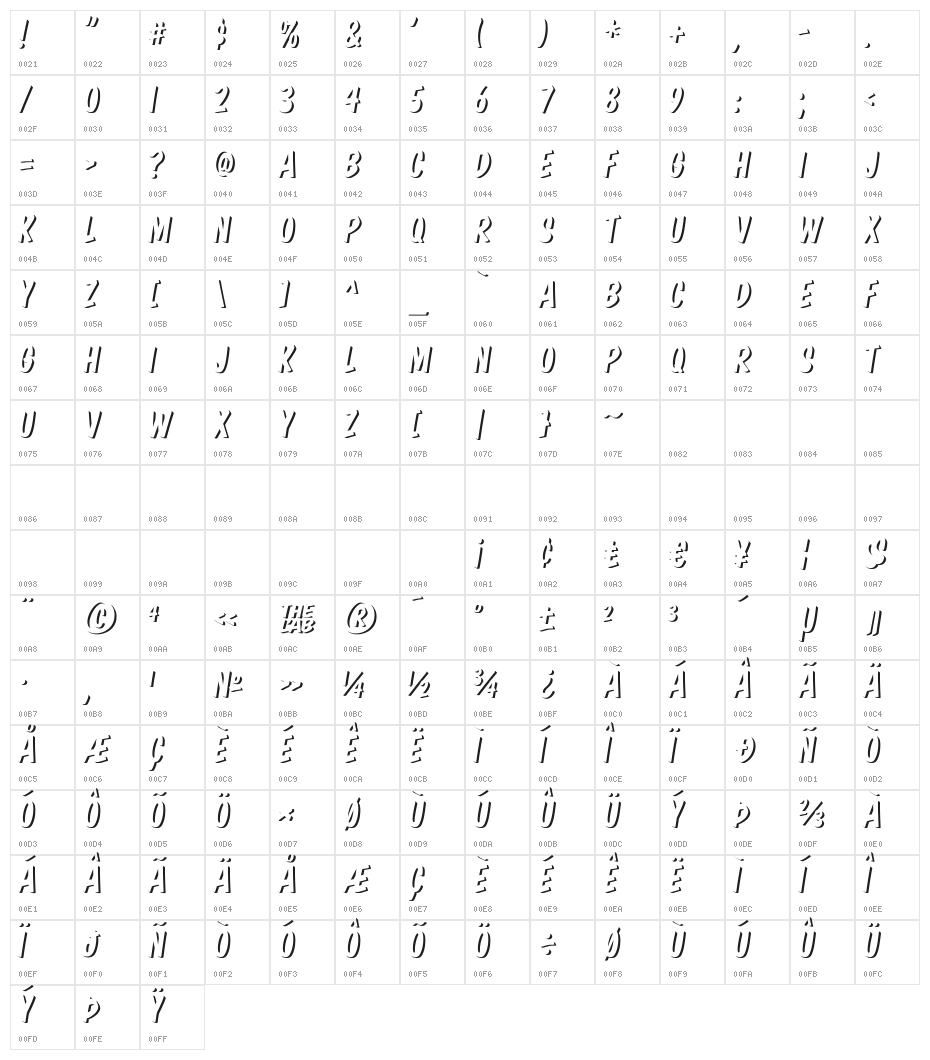
Komika Boss Font
Komika Boss Description
This font features a bold and dynamic style with a playful, comic-inspired appearance. The characters are slightly slanted, giving them a sense of motion and energy. Each letter is outlined with a shadow effect, enhancing its three-dimensional look. The uppercase and lowercase letters maintain a consistent style, with exaggerated curves and angles that add to the font's whimsical nature. The numbers and special characters are equally bold, ensuring a cohesive look across all text elements. This font is perfect for projects that require a fun and engaging visual impact.
Overall StylePlayful, Comic
Proposed ProjectsIdeal for comic books, children's books, playful branding, and eye-catching posters.